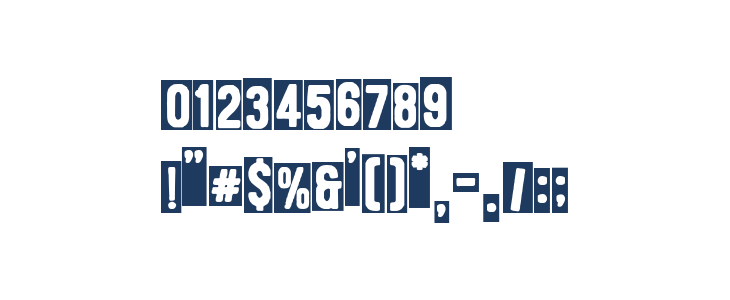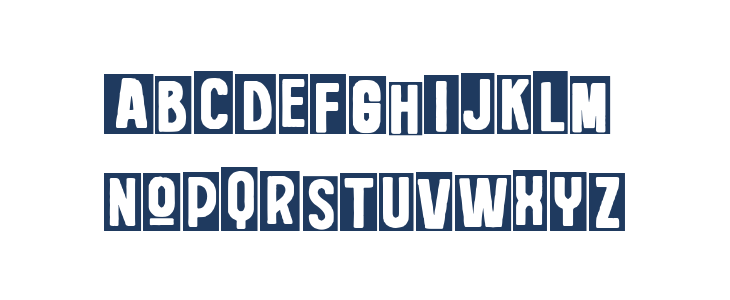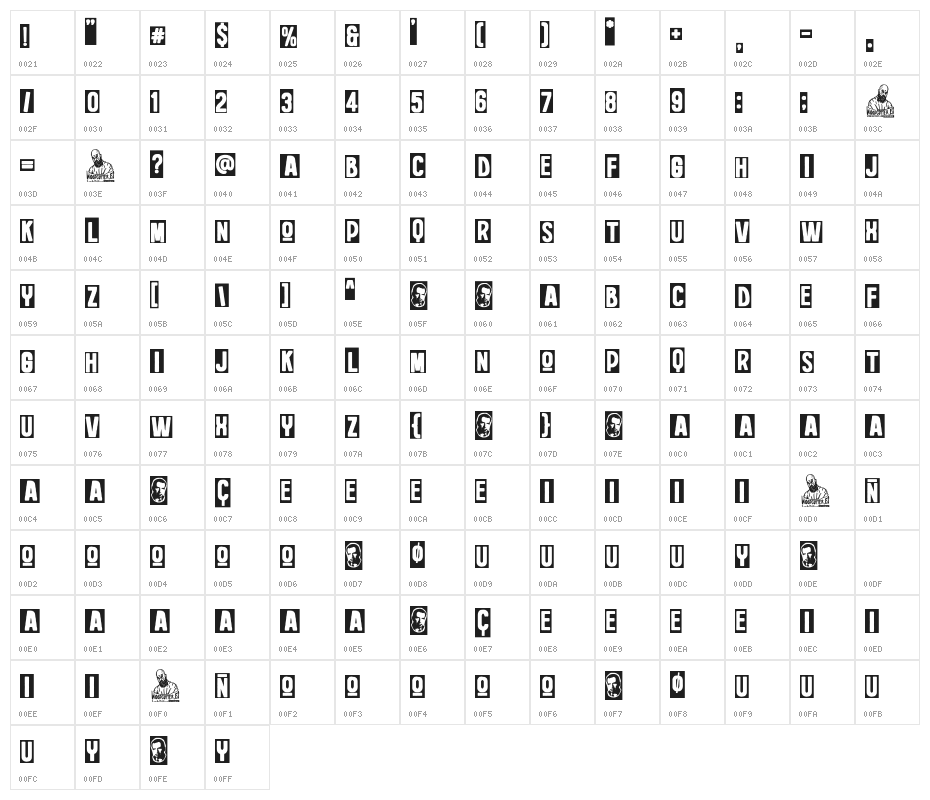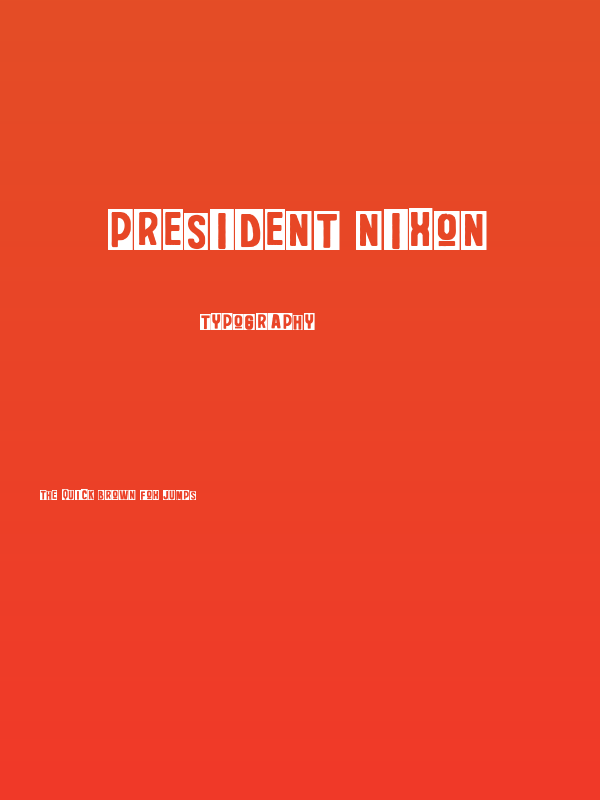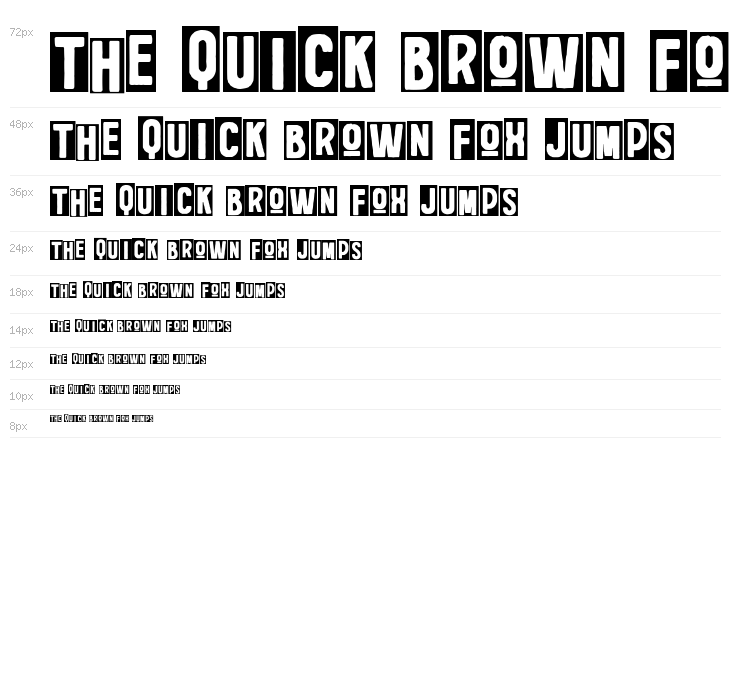
President Nixon Font
✎ Stencil
| Overall Style | Vintage, Decorative, Stencil |
| Use Case | Headlines, Posters, Logos, Signage |
| Proposed Projects | Posters, protest signs, album covers, editorial headlines, branding for retro or political themes. |